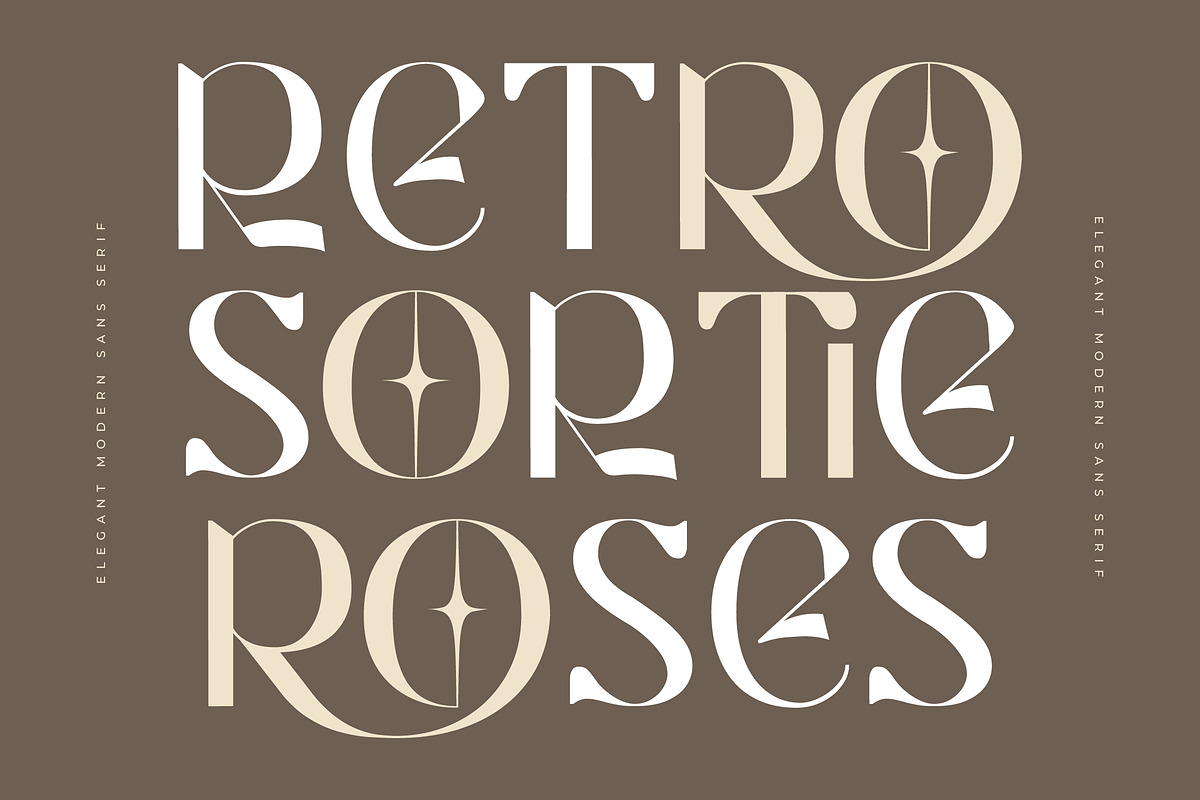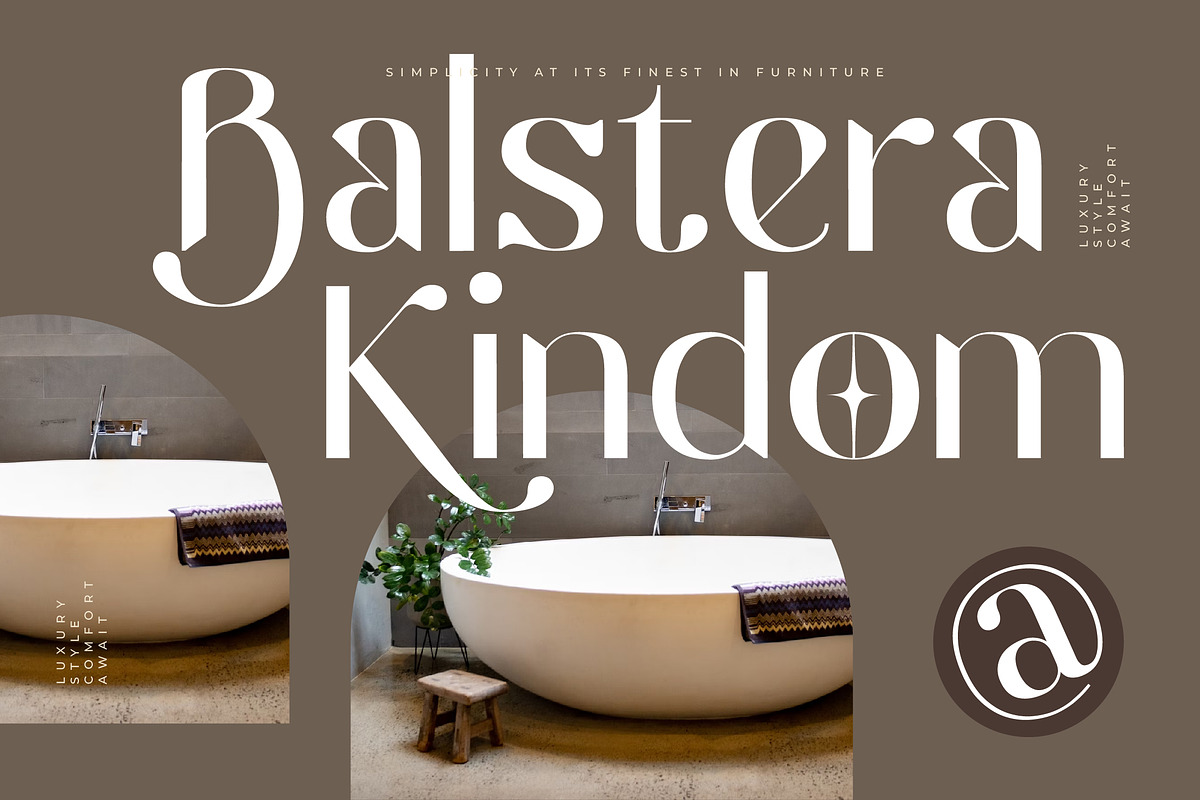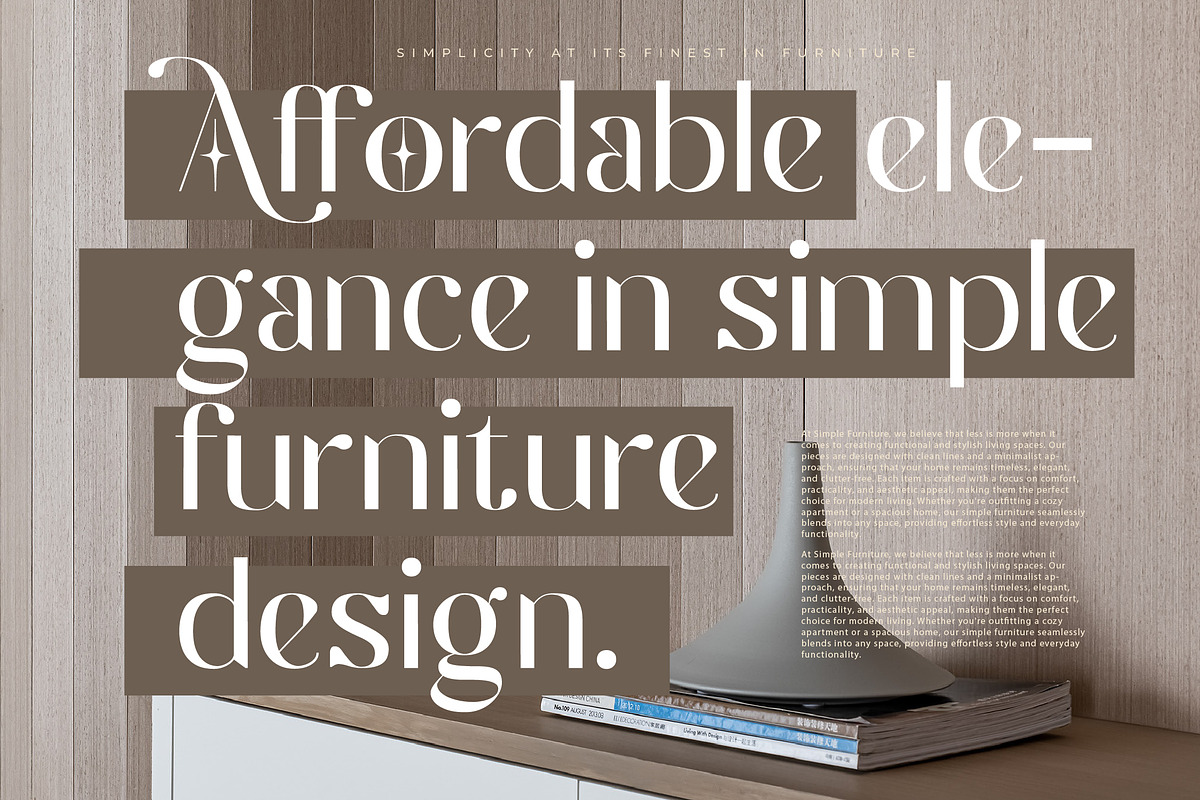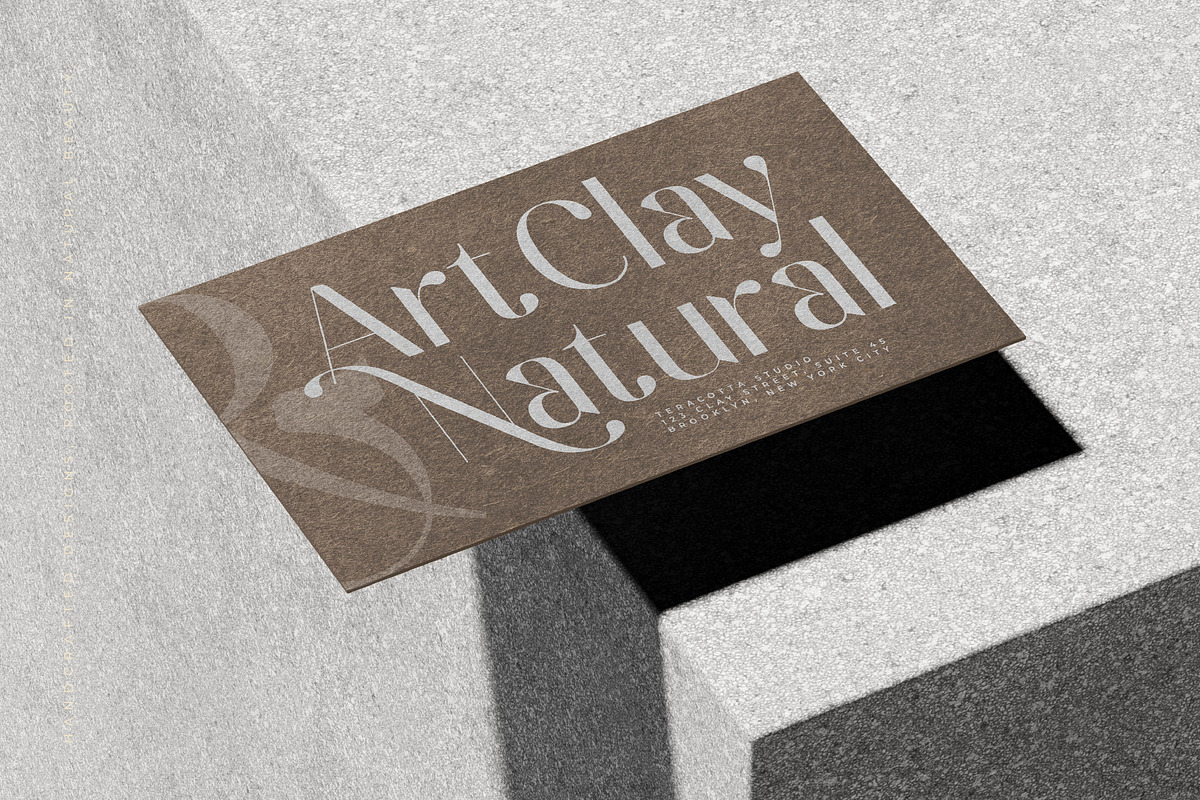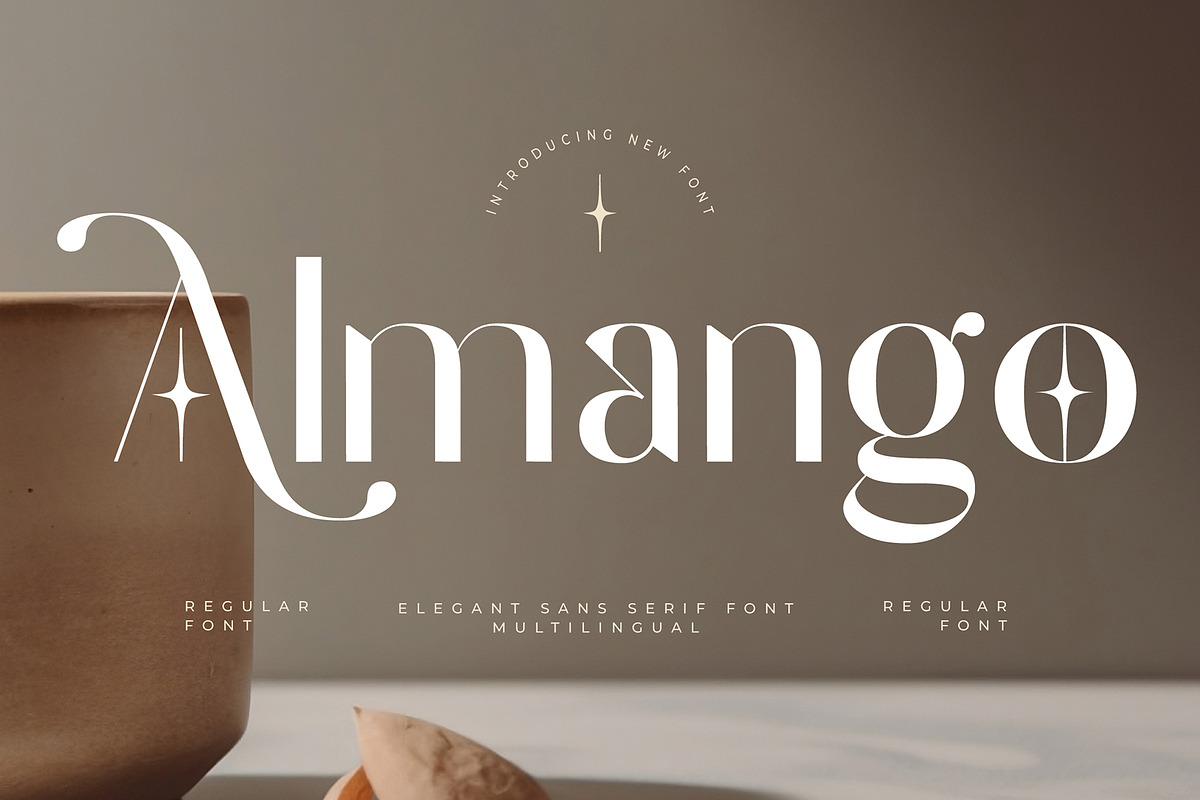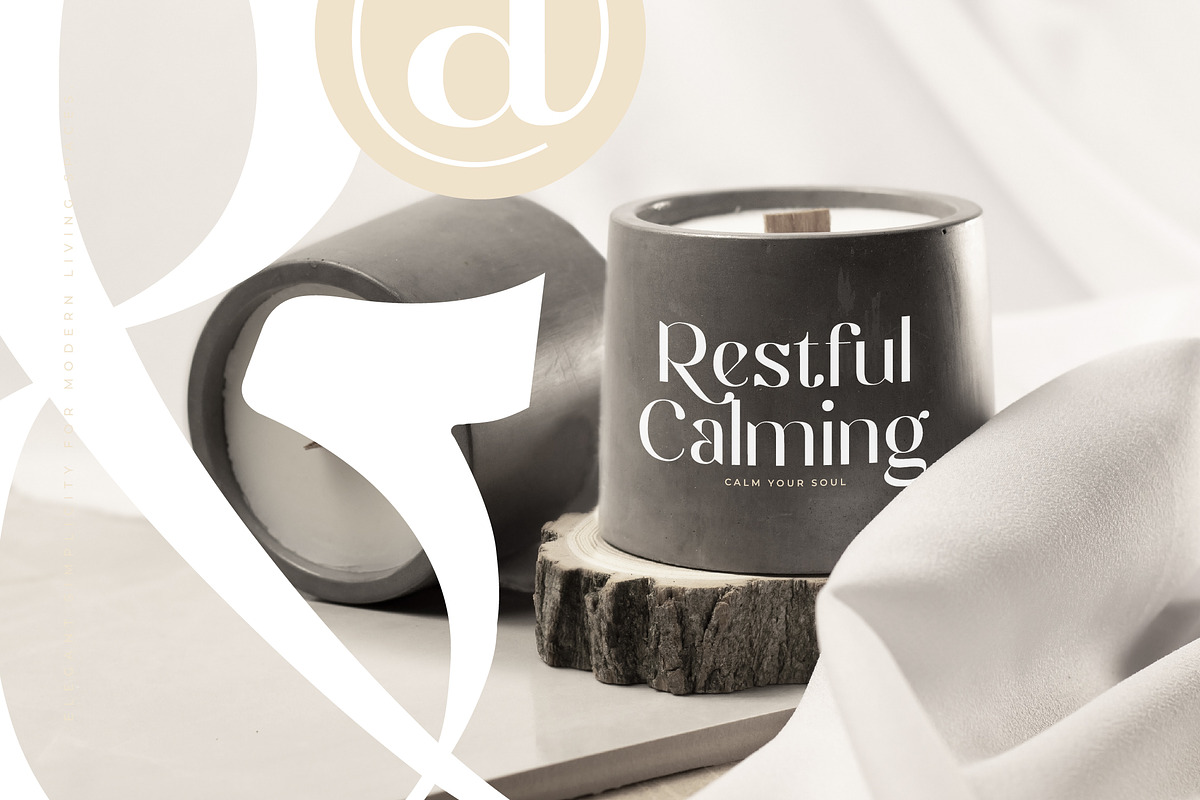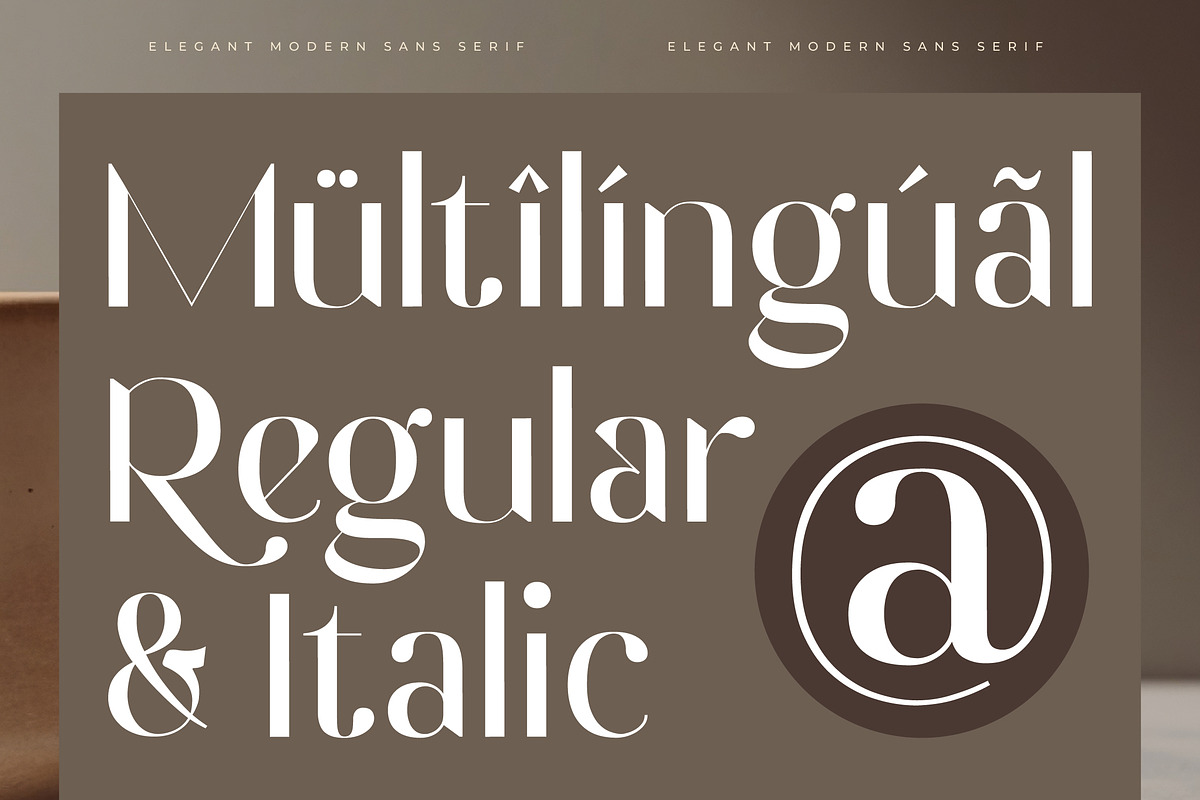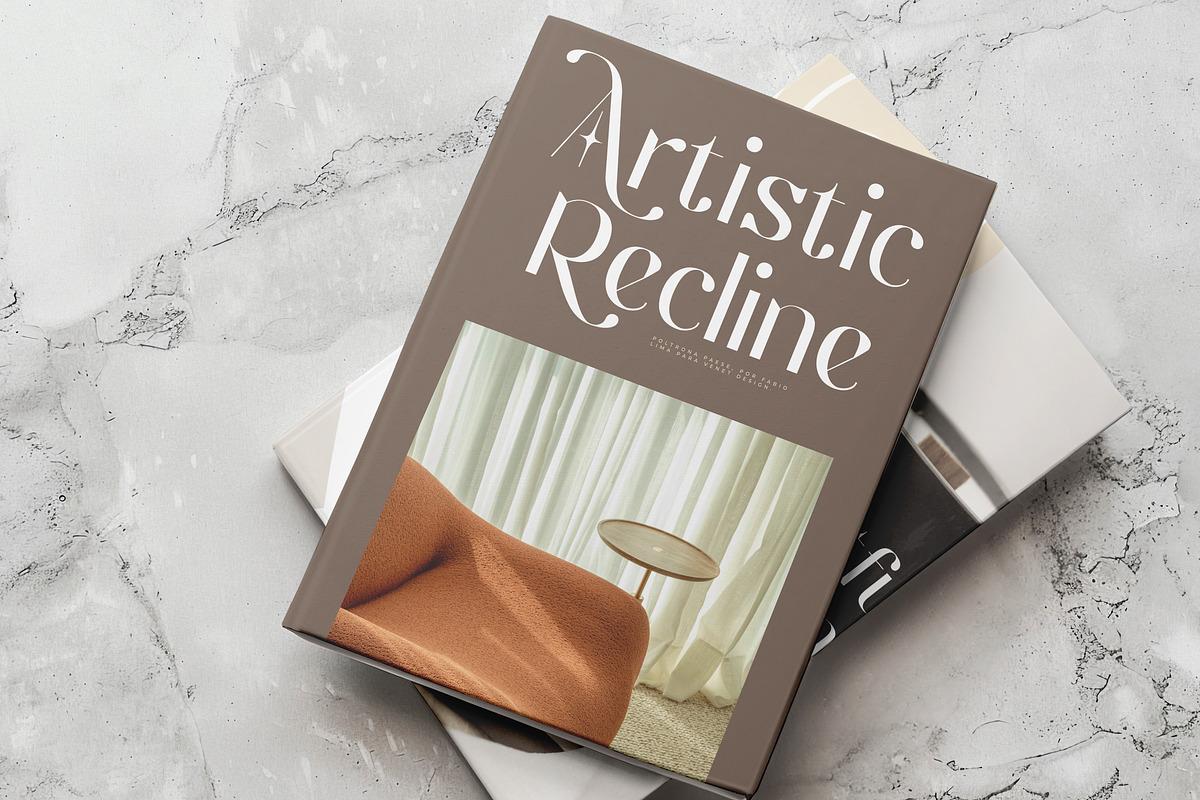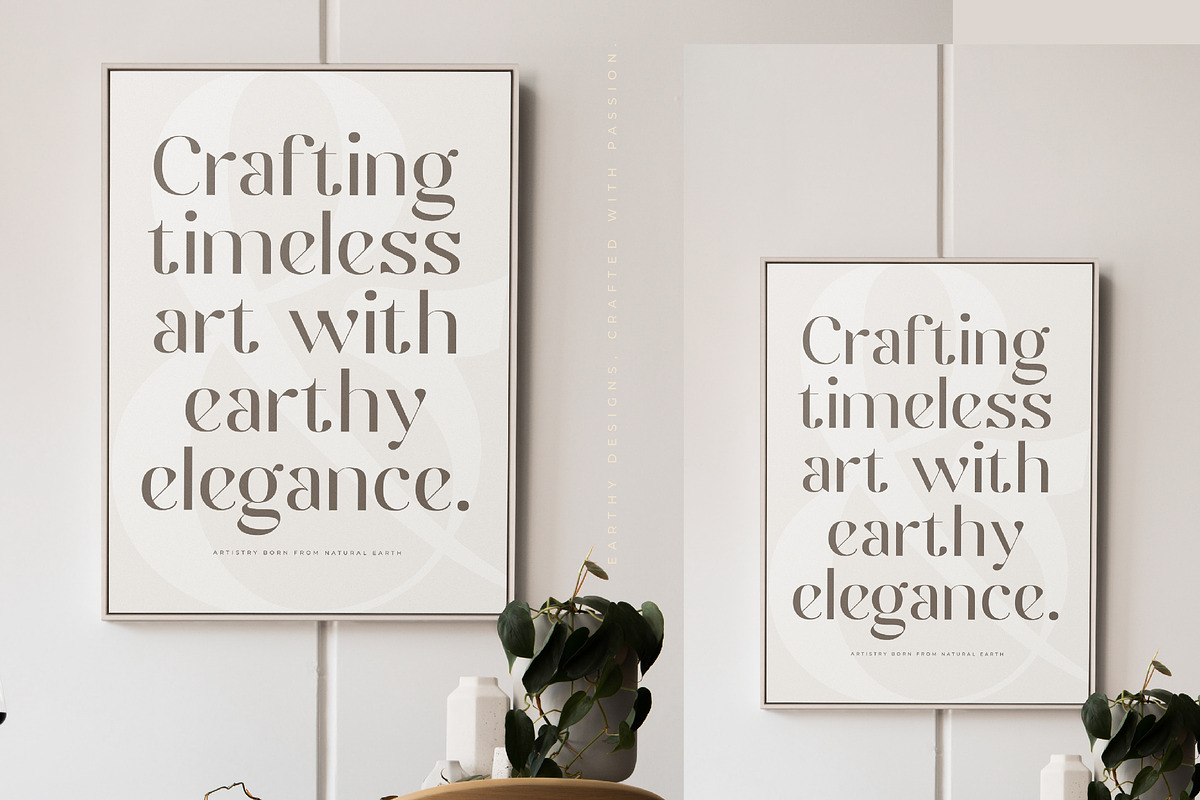
Almango Elegant Sans Serif Font
Almango elegant Sans Serif font is a unique, modern luxury font with a luxury, elegant, aesthetic and geometric style. It is a display font perfect for branding projects, logos, social media posts, product packaging, labels, etc.